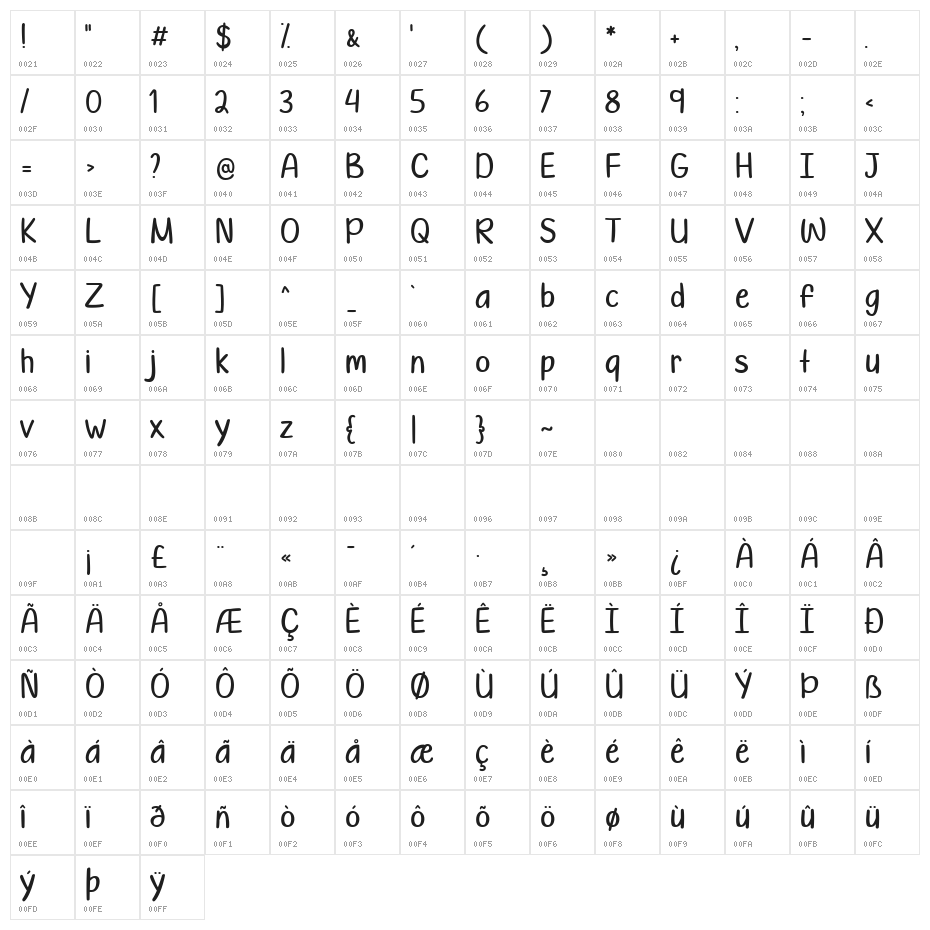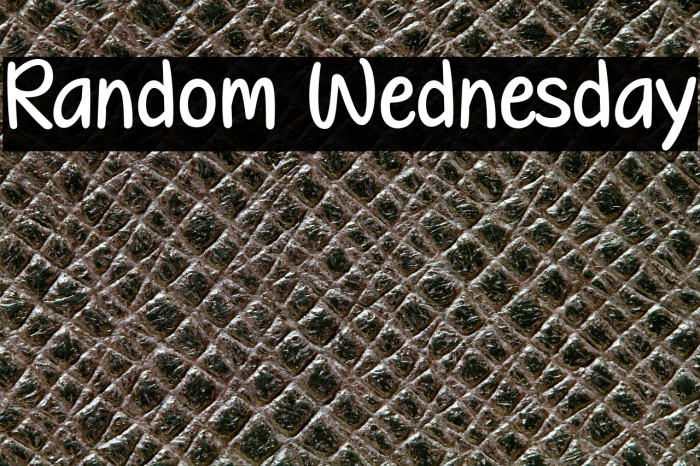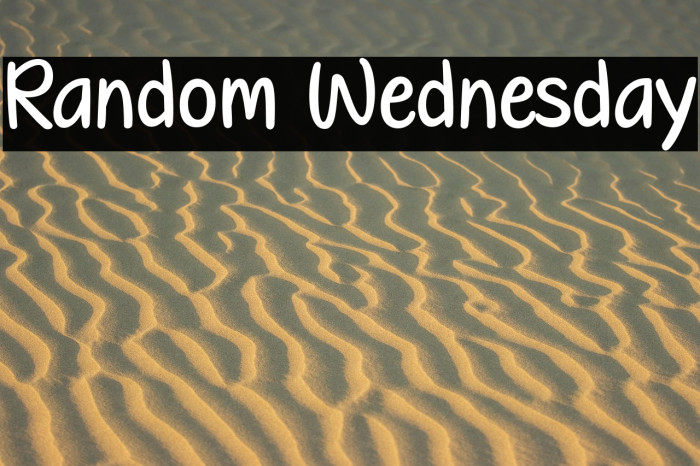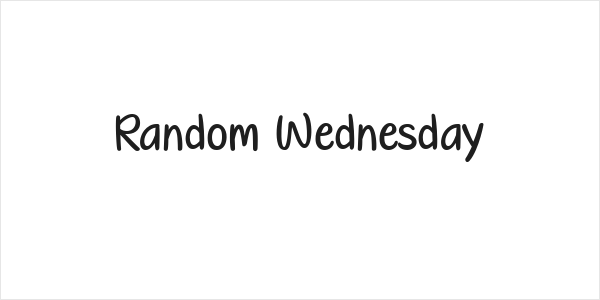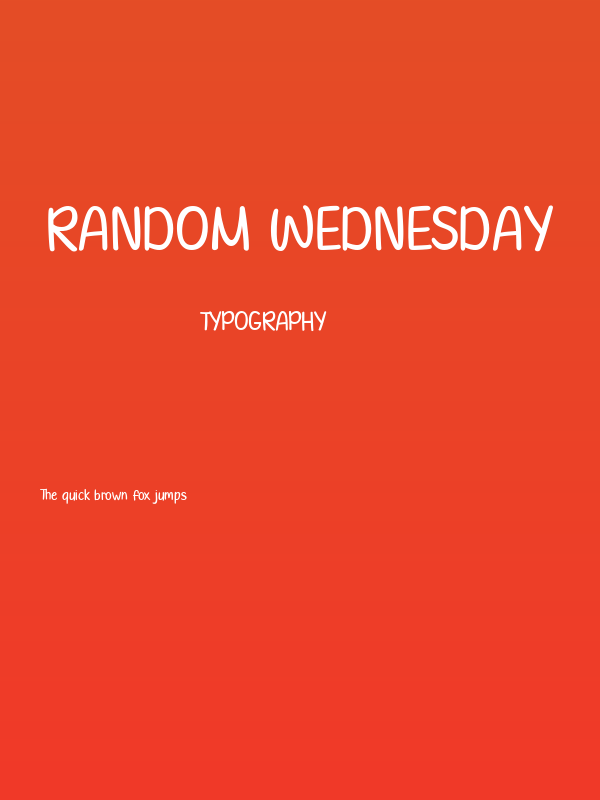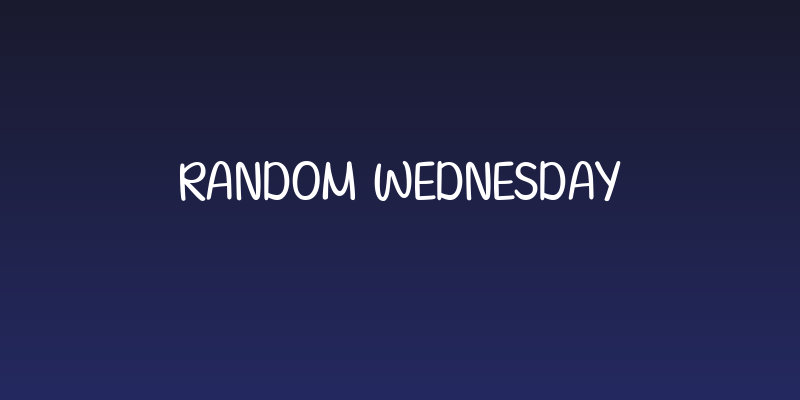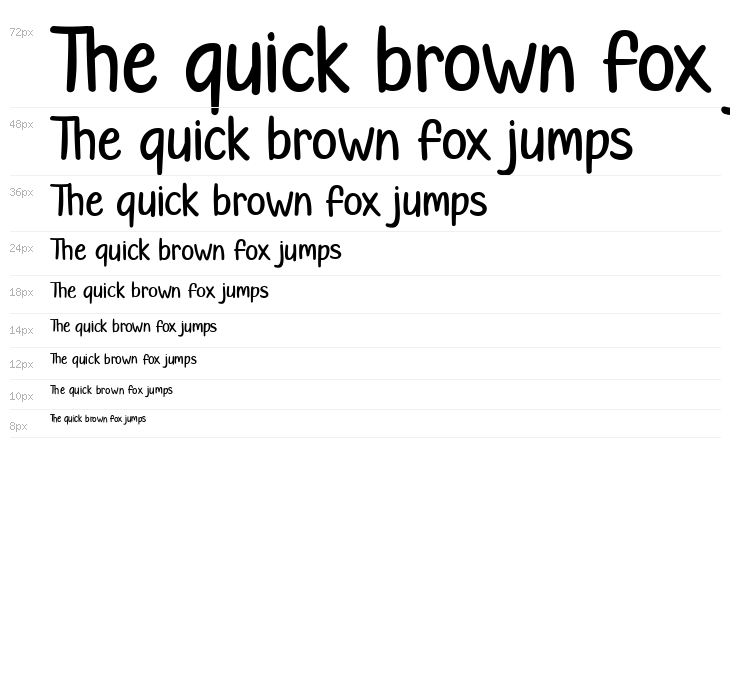
Random Wednesday Font
Random Wednesday Description
A playful, handwritten font with rounded edges and a casual style.
| Overall Style | Casual |
| Proposed Projects | Children's books, casual invitations, playful branding. |